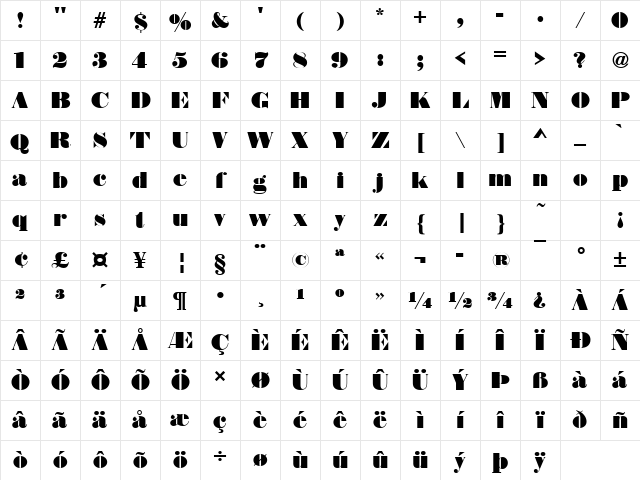
ThorowgoodDReg Regular
Design Context for ThorowgoodDReg
ThorowgoodDReg is a composed and adaptable typeface that performs quietly and consistently across a wide range of design contexts.